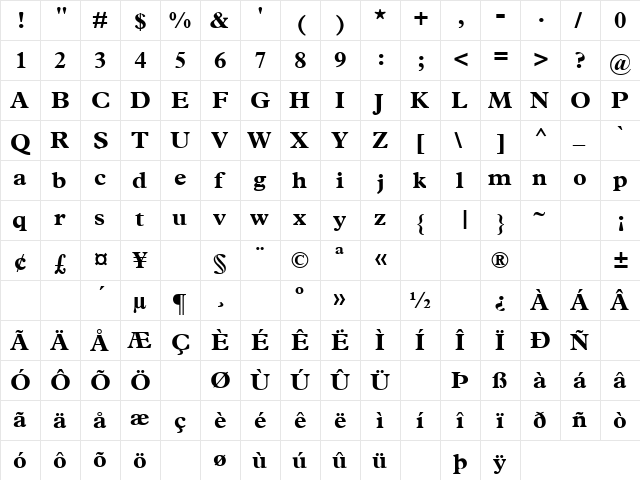
Lick And A Promise 2 Regular
Lick And A Promise 2 is a composed and adaptable typeface that performs quietly and consistently across a wide range of design contexts.